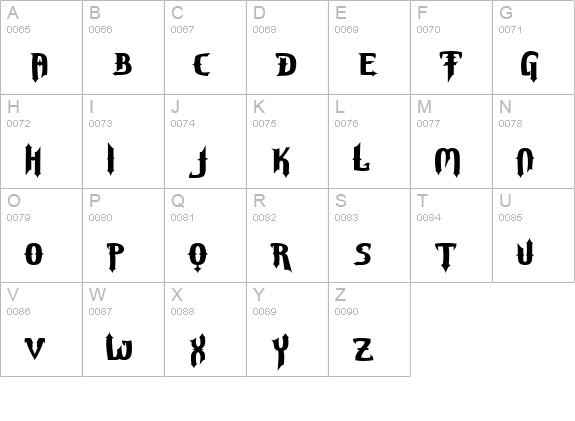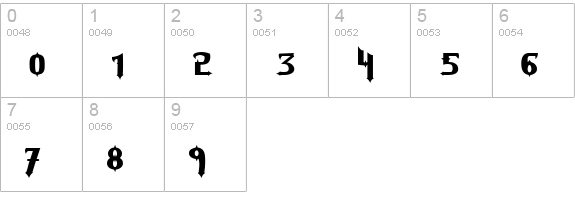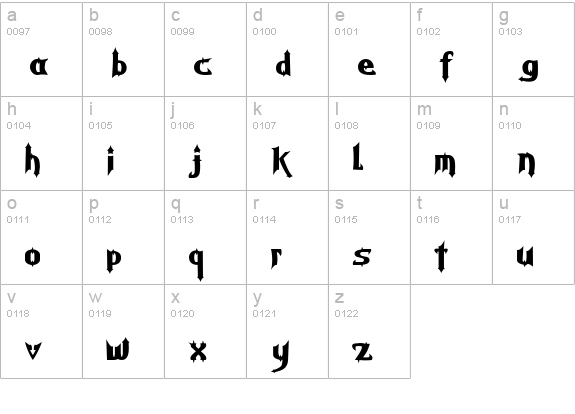
Grave Digger font is a stunning and spooky typeface that exudes a sense of mystery and darkness. With its sharp edges and gothic aesthetic, this font is perfect for adding a touch of macabre to your projects. The Grave Digger font is versatile and can be used for a wide range of design applications, from Halloween-themed invitations to horror movie posters. What makes Grave Digger font even more appealing is that it is available for free download at FontsMarket.com. You can easily access this unique and eye-catching font to elevate your designs and give them a hauntingly beautiful touch. Don't miss out on the chance to add Grave Digger font to your collection and bring a touch of the supernatural to your creations.